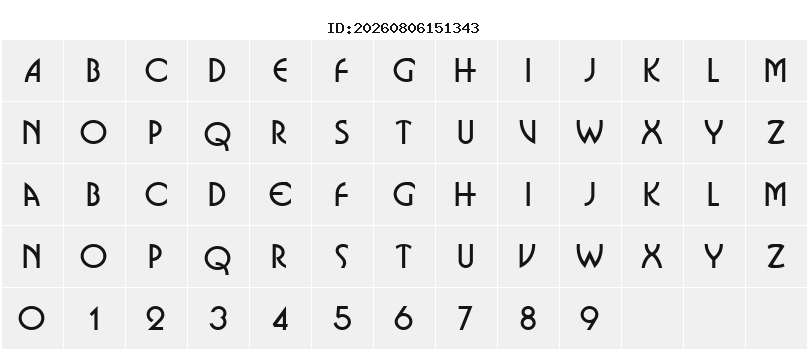
• Font Name: Omnibus
Omnibus.ttf is a modern, elegant sans-serif font designed for ultimate readability and visual harmony. Perfect for branding, headlines, web design, and print materials.